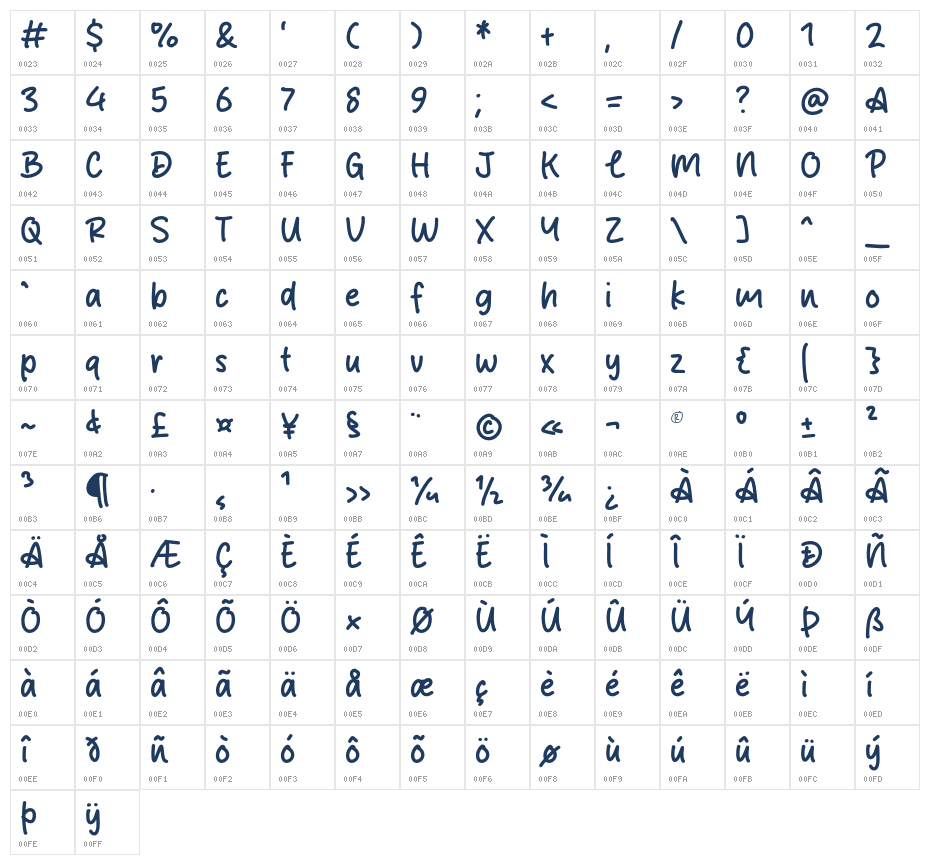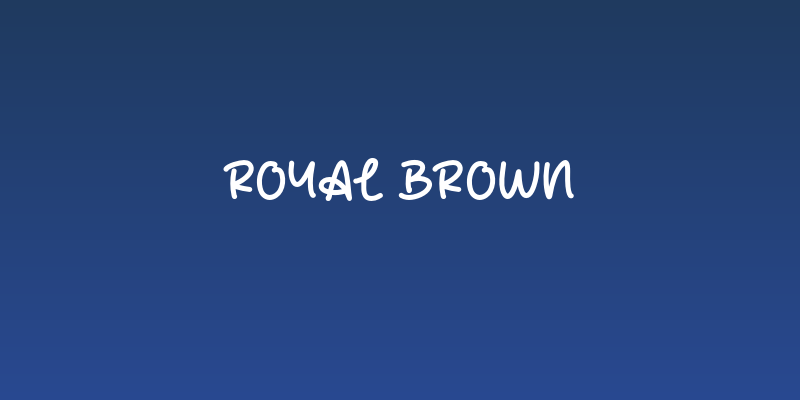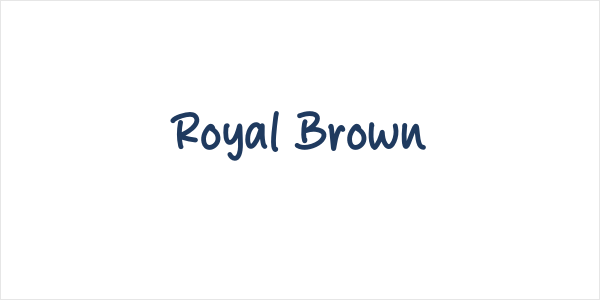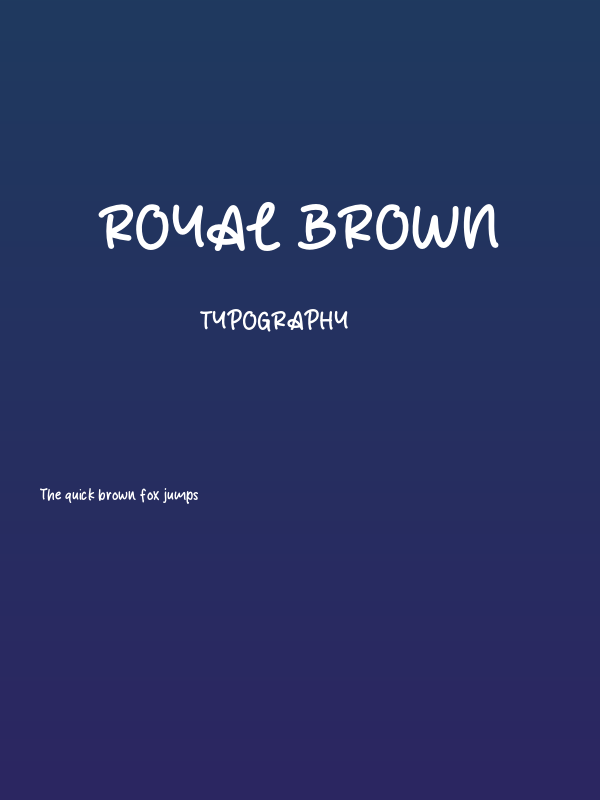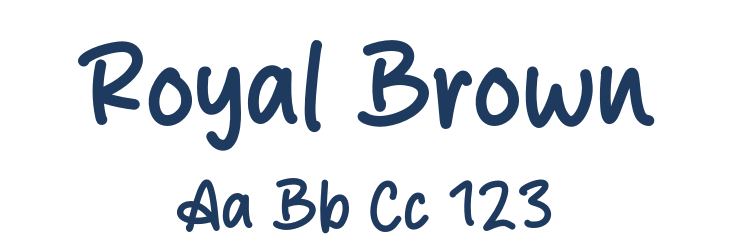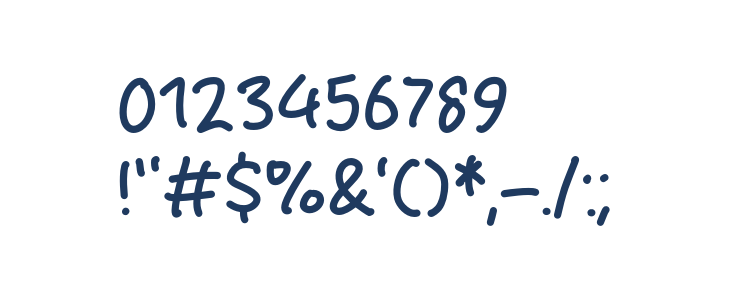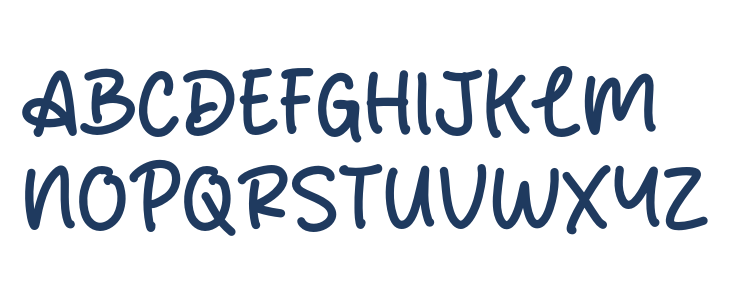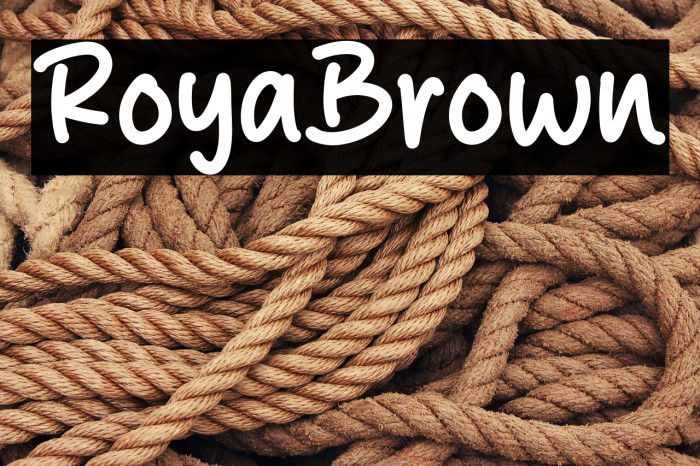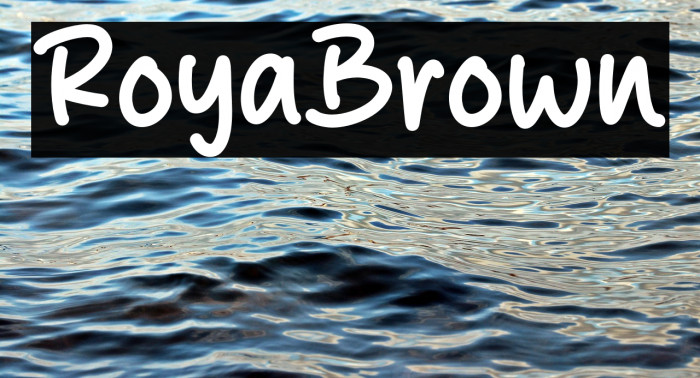
Royal Brown Font
Royal Brown Description
A casual, handwritten script font with a playful and friendly appearance, featuring rounded edges and a slightly irregular stroke width.
Royal Brown
| Overall Style | Casual, Friendly, Playful |
| Use Case | Headlines, Body text, Logos, Invitations, Greeting cards |